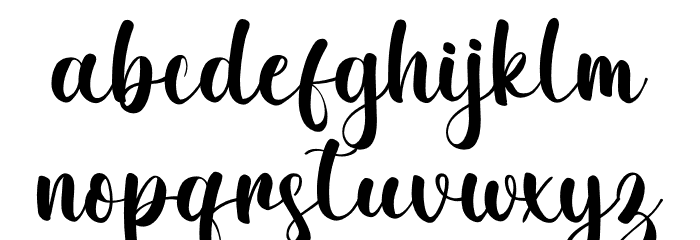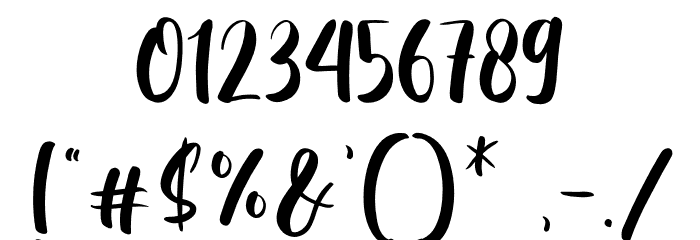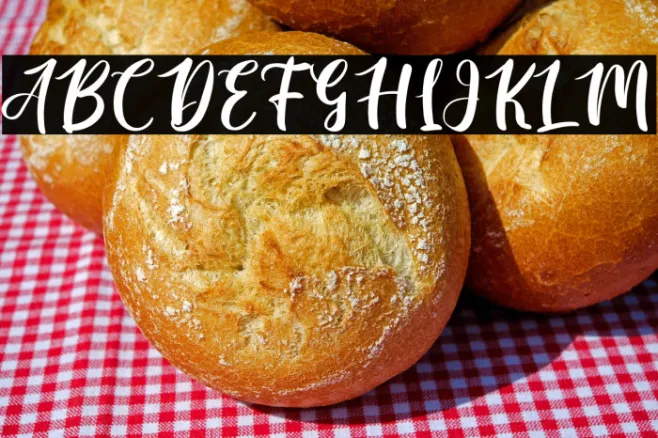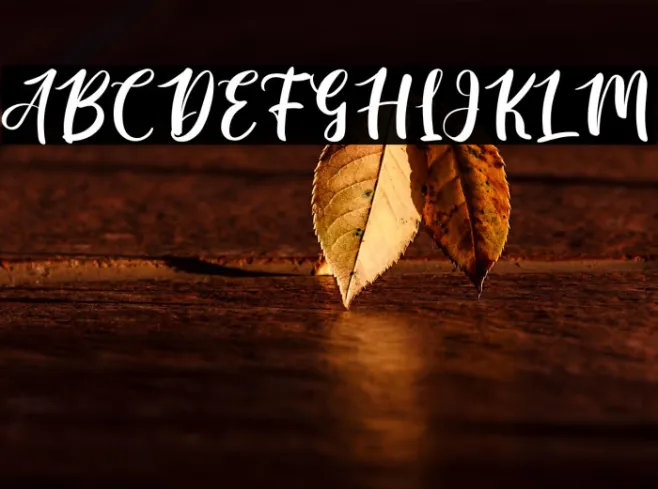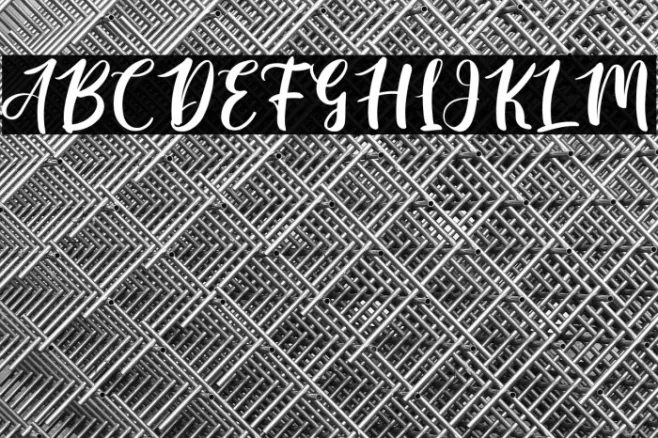
Beauty Sahara Font
This font features a flowing, cursive style with a modern touch, characterized by its elegant and smooth curves. The uppercase letters are bold and dynamic, with a slight slant that adds a sense of movement and grace. The lowercase letters maintain a consistent style, with rounded edges and a playful, handwritten feel. Numbers and special characters follow the same aesthetic, ensuring a cohesive look across all text. The overall appearance is both stylish and approachable, making it suitable for a variety of creative applications.
A modern, cursive font with elegant curves and a handwritten feel.
- Font: Beauty Sahara
- Proposed Projects: Ideal for wedding invitations, greeting cards, branding, and social media graphics.
- Category: Script
- Use Case: Logos, Headlines, Invitations